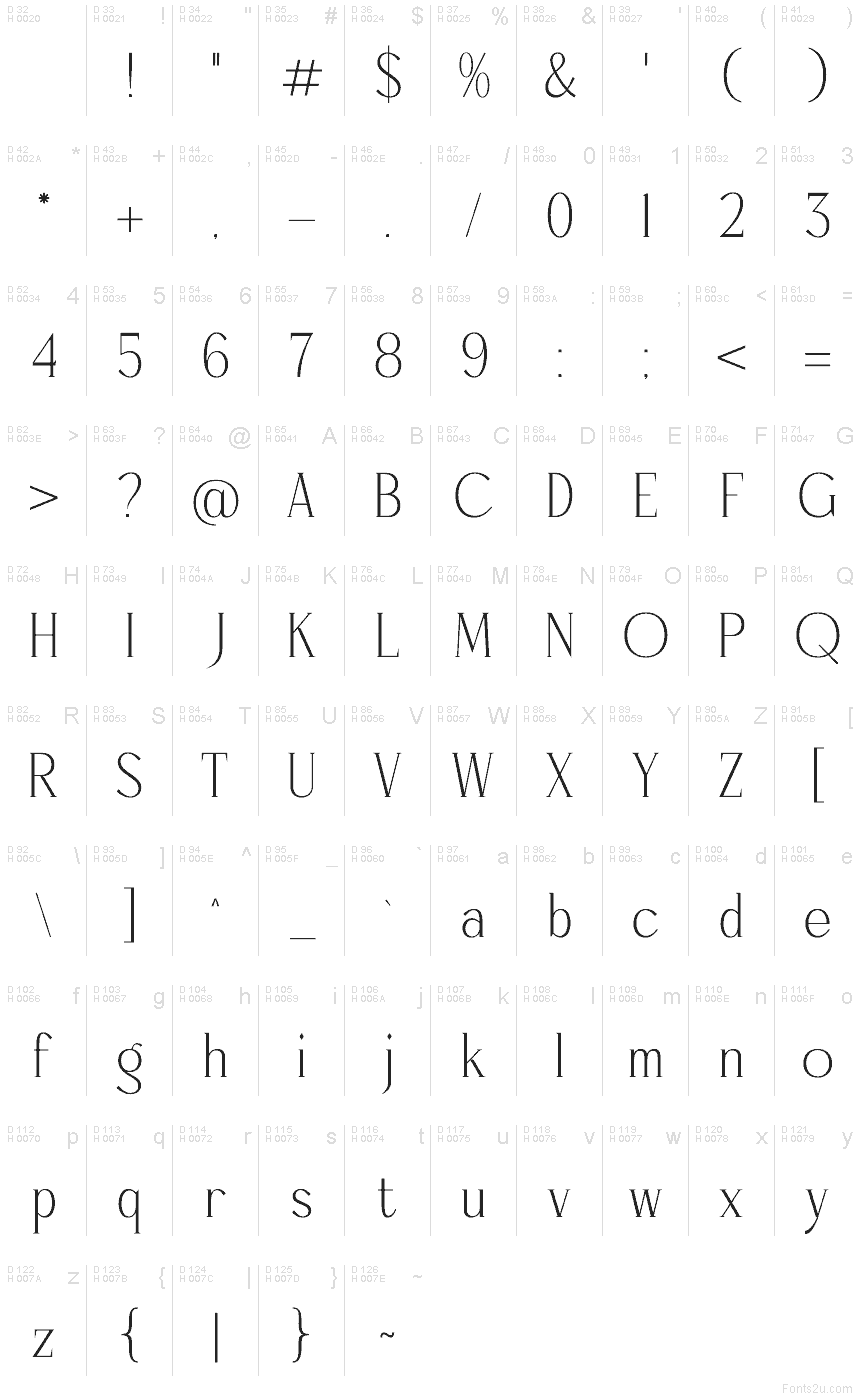
Qarinthen
Qarinthen font by Storytype Studio is a free high-contrast serif display font. It stands out with razor‑thin hairlines, crisp wedge serifs, and a silky rhythm that feels both airy and poised. The sweeping Q tail and diamond‑cut details add a couture touch, while the tight, elegant curves keep letters flowing like ink on smooth paper.
Using Qarinthen, headlines breathe luxury—great for fashion branding, beauty packaging, editorial mastheads, boutique logos, wedding suites, perfume posters, and social media quotes. This free font shines at larger sizes where its fine strokes stay sharp; add a touch of tracking for extra glow. For balance, pair it with a clean, neutral sans for body text to let Qarinthen carry the spotlight.